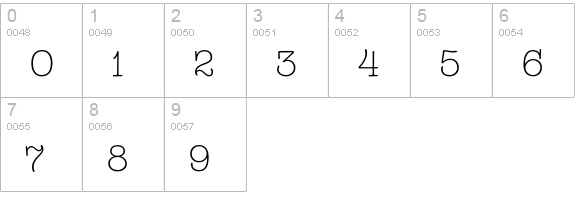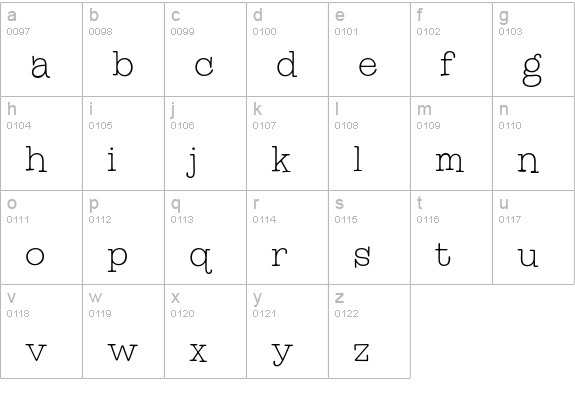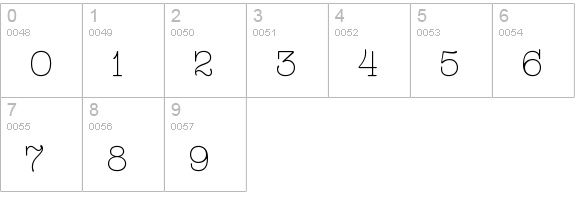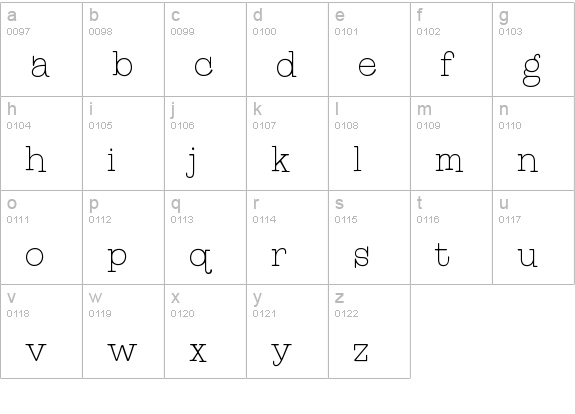
ShagExpert-Mystery Font Details
Introducing ShagExpert-Mystery font, a captivating and enigmatic typeface that exudes an air of intrigue and sophistication. Its unique and intricate design is sure to leave a lasting impression on any project, whether it be for branding, advertising, or artistic endeavors. With its bold and mysterious curves, ShagExpert-Mystery font effortlessly combines elegance and mystique, making it the perfect choice for those seeking to add a touch of intrigue to their designs. Its carefully crafted letterforms draw the eye and invite the viewer to delve deep into the hidden depths of each character. But what sets ShagExpert-Mystery font apart is not just its striking aesthetics, but also its accessibility. This stunning font is freely available for download at FontsMarket.com, ensuring that designers and creatives of all backgrounds can utilize its captivating allure without any limitations. Whether you're working on a website, a book cover, or a logo, ShagExpert-Mystery font will add an air of enigma and allure to your project. Its versatility allows it to be used in a variety of settings, from vintage-inspired designs to modern and contemporary layouts. So why wait? Dive into the enigmatic world of ShagExpert-Mystery font and experience its captivating allure for yourself. Download it for free at FontsMarket.com and unlock endless possibilities to create mesmerizing and unforgettable designs.